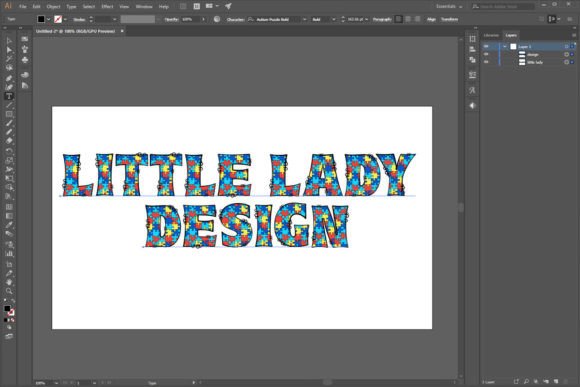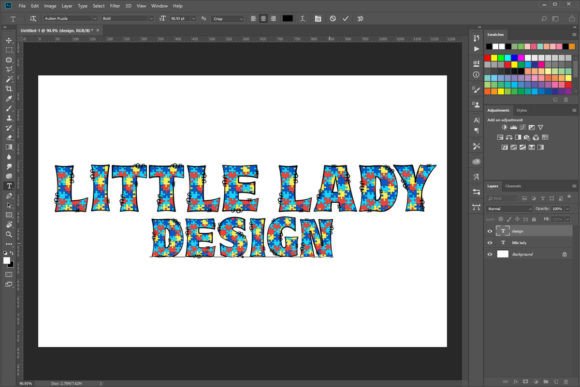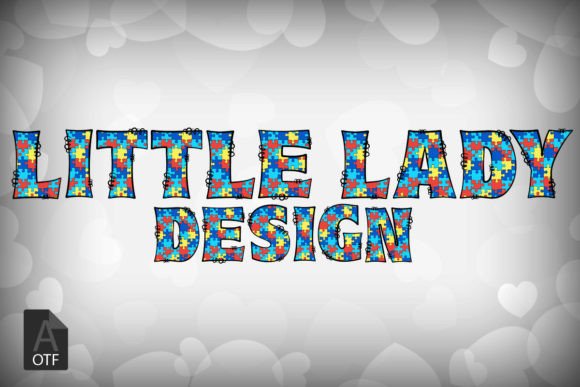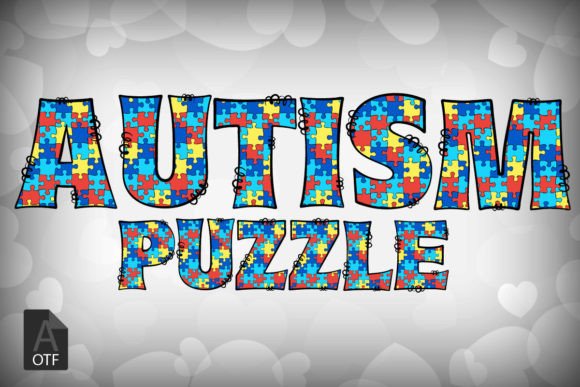
The Autism Puzzle Font: A Vibrant Display Font for Creative Projects
I’ll never forget the time I was working on an Easter-themed design project for a client, and I just couldn’t seem to find the right font. I wanted something that was bold, bright, and playful, but also conveyed a sense of whimsy and fun. That’s when I stumbled upon the Autism Puzzle font, and let me tell you, it was love at first sight! 💕
As a designer, I’m always on the lookout for fonts that can help me create unique and eye-catching designs. And the Autism Puzzle font definitely fits the bill. With its retro aesthetic and bold, bright colors, it’s the perfect font for creating lively and engaging designs.
- ✨ The Autism Puzzle font has a unique and quirky personality that’s perfect for creative projects.
- ✅ The font is highly legible, even at small sizes, making it perfect for a variety of design applications.
- 🎉 The font comes with a range of OpenType features, including glyphs and stylistic alternates, which give you plenty of creative options.
- 💡 The font is perfect for creating Easter-themed designs, but it’s also versatile enough to use for a wide range of other projects.
While the Autism Puzzle font is an amazing font, there are a few small quirks to be aware of. 🤔 For example, some of the glyphs and special characters can be a bit finicky to access, especially if you’re new to using OpenType features. ⚠️ Additionally, the font may not be the best choice for body text or long-form writing, as it’s really designed to be a display font.
The Designer Inspiration Behind the Autism Puzzle Font
The Autism Puzzle font was designed with the goal of creating a unique and eye-catching display font that would be perfect for creative projects. The designer was inspired by the idea of creating a font that would be both fun and functional, with a range of OpenType features that would give designers plenty of creative options.
| Font Name | Autism Puzzle Font |
| Author | Little Lady Design |
| What is the Autism Puzzle font best used for? | The Autism Puzzle font is best used for creative projects that require a bold, bright, and playful font, such as Easter-themed designs, posters, and social media graphics. |
| Is the Autism Puzzle font easy to read? | Yes, the Autism Puzzle font is highly legible, even at small sizes, making it perfect for a variety of design applications. |
| Does the Autism Puzzle font come with OpenType features? | Yes, the Autism Puzzle font comes with a range of OpenType features, including glyphs and stylistic alternates, which give you plenty of creative options. |